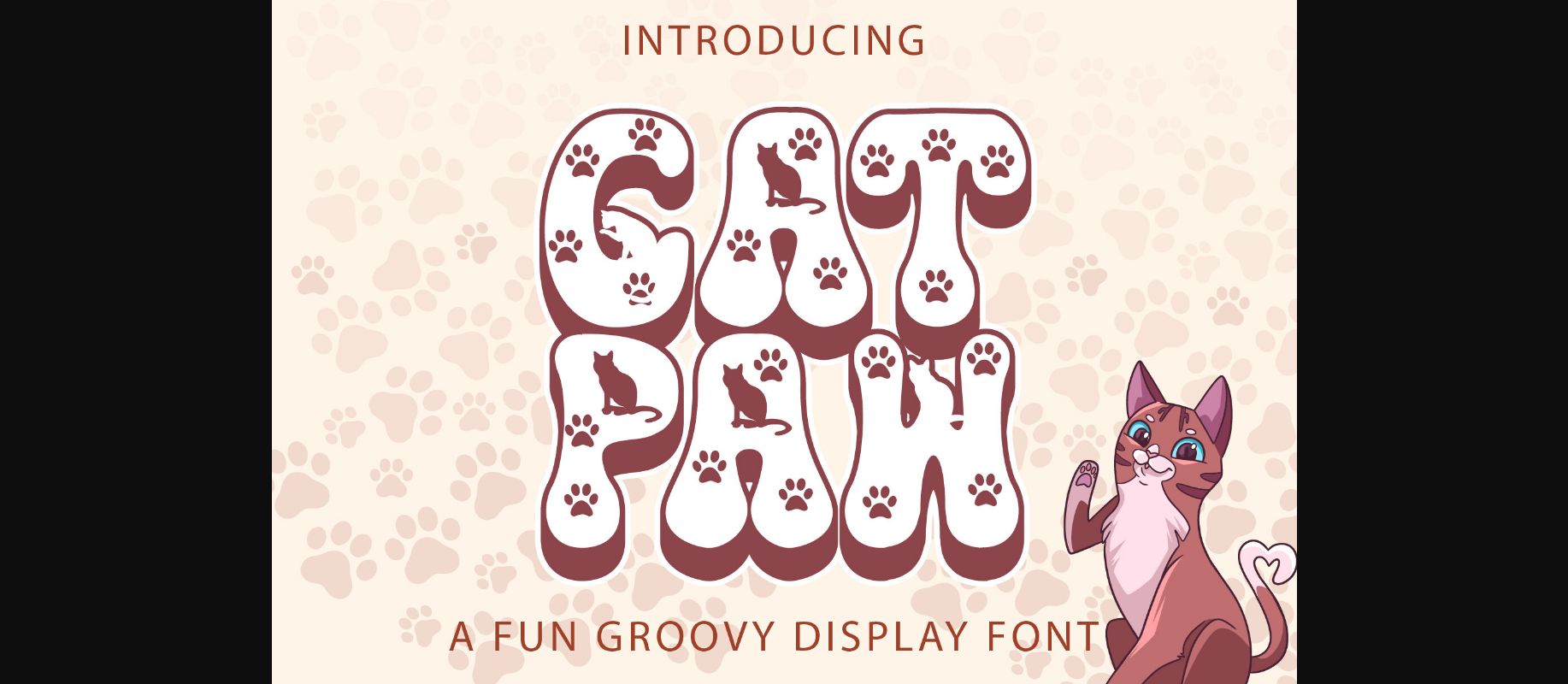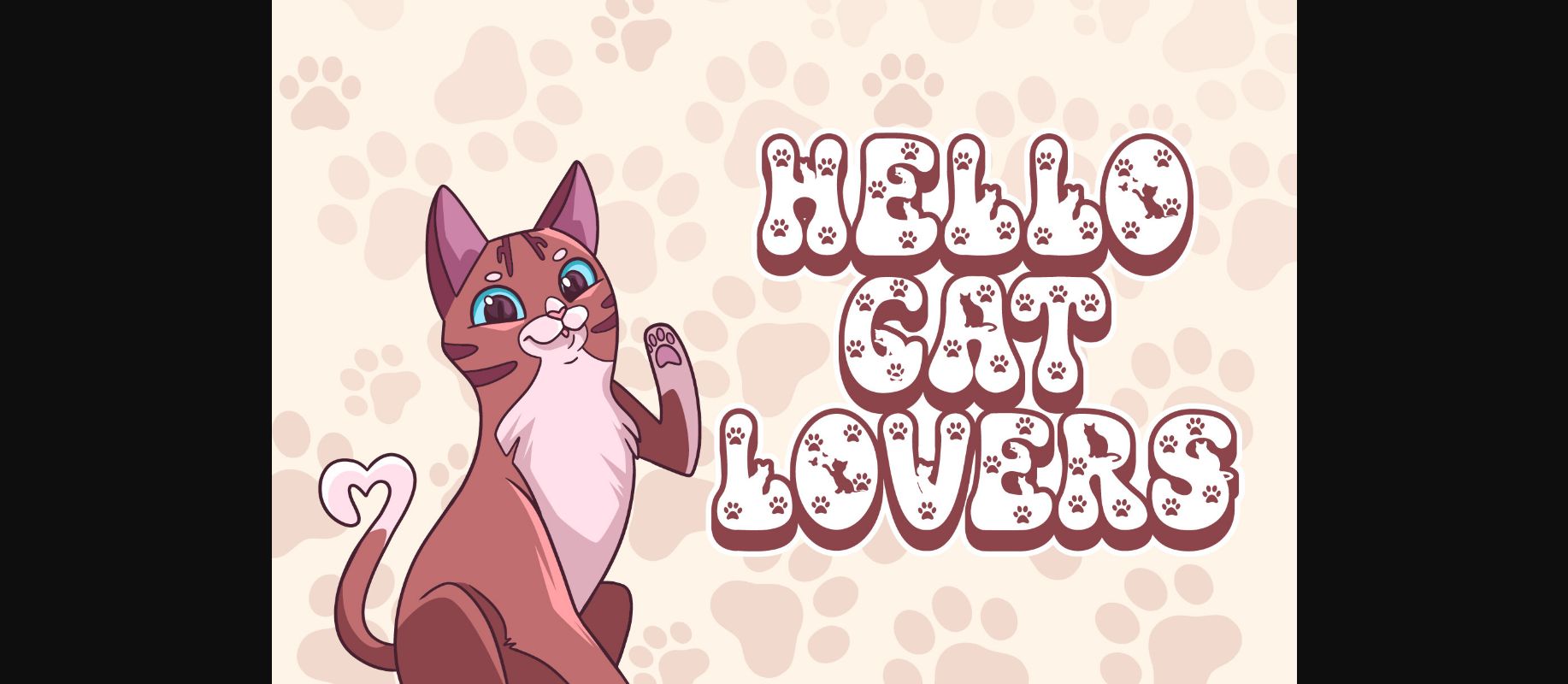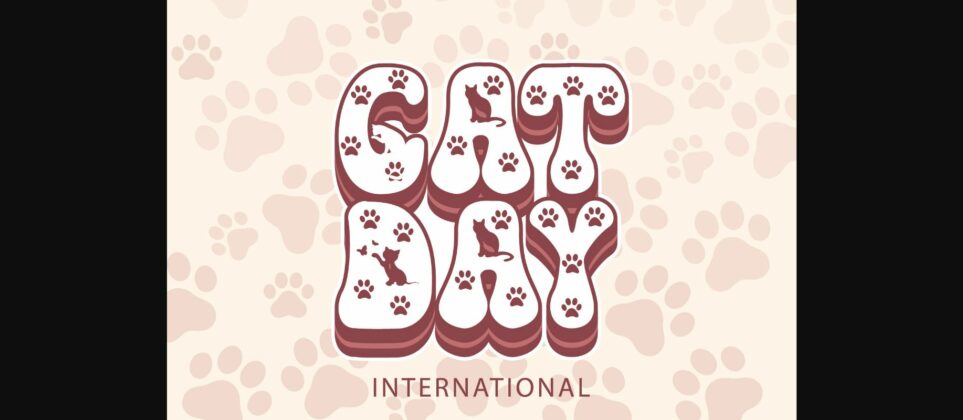
About Cat Paw Font
Cat Paw is a charming decorative font that adds a playful touch to your designs. Each letter is adorned with adorable cat paw prints, making it purrfect for cat lovers and whimsical projects. This unique font adds a delightful feline flair to your messages and visuals, creating a delightful and eye-catching display.